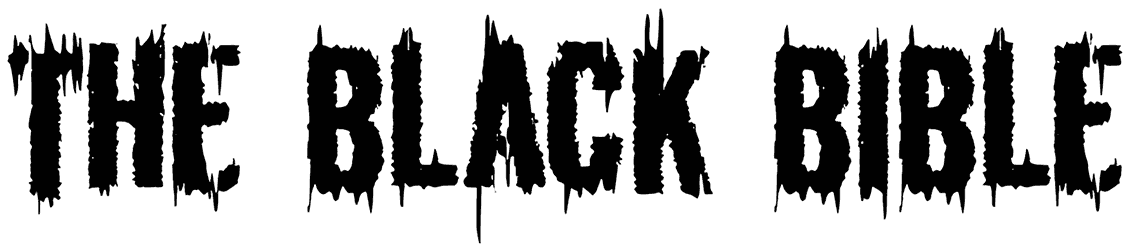
The dripping face of the Oh No Not Again, a new horror font, gives you a variety to implement creative ideas in your upcoming projects. This font is a successful combination of scary elements, such as drops of blood and chain lines that can evoke the hand of a hostage in the mind.
The lack of small letters and numbers in this zombie font is not felt at all when you want to design headers for covers, movies, and posters.